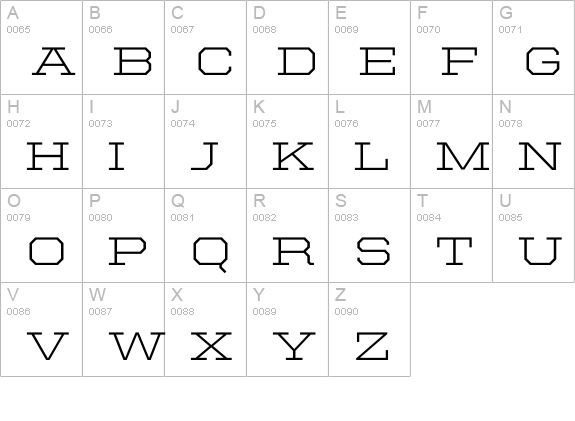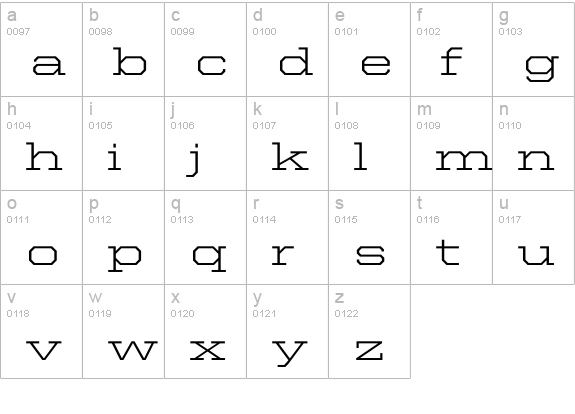
United Serif Ext Light Font Details
United Serif Ext Light is a refined, elegant variant in the United typeface family \xE2\x80\x94 well suited to elegant body text, refined sub-headings, and luxury branding.
United Serif Ext Light is a stunning and elegant font that exudes sophistication and professionalism. With its slender and refined letterforms, this typeface is the perfect choice for projects that require a touch of class. The delicate serifs add a subtle flair, enhancing the overall visual appeal of the font. What sets United Serif Ext Light apart is not only its exceptional design but also the fact that it is available free of charge. You heard it right, this remarkable font can be downloaded for free at FontsMarket.com. Whether you are a designer, a business owner, or simply someone who appreciates the beauty of typography, United Serif Ext Light will be a valuable addition to your font collection. With its extensive character set, United Serif Ext Light offers versatility and flexibility in various design applications. From professional documents and corporate branding to invitations and editorial layouts, this font will effortlessly elevate the visual impact of your projects. The clean and legible nature of United Serif Ext Light ensures optimal readability, making it suitable for both print and digital media. Its generous x-height and generous letter spacing contribute to an overall balanced and harmonious look. United Serif Ext Light is a font that effortlessly combines classic elegance with modern sensibilities. Its timeless appeal makes it suitable for a wide range of design projects, from traditional to contemporary. By choosing United Serif Ext Light, you are embracing a font that not only enhances your designs but also offers the convenience of being freely available to download at FontsMarket.com. Don't miss out on this opportunity to add a touch of sophistication to your creative endeavors.